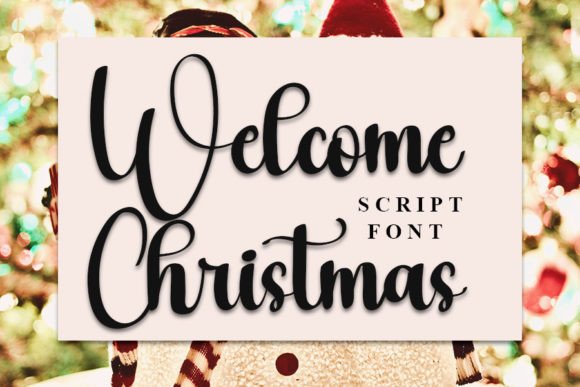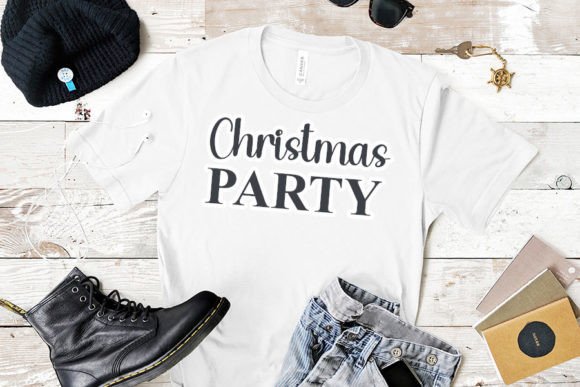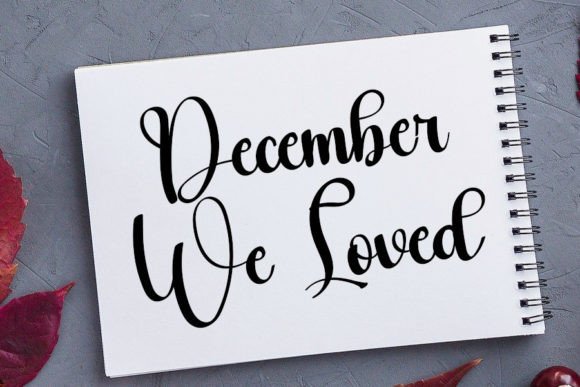
About Welcome Christmas Font
“Welcome Christmas” is a stylish handwritten font that exudes a contemporary atmosphere and impeccable form. Inspired by timeless classic calligraphy, this font is meticulously crafted with a balanced and varied design, aiming to enhance the beauty of your projects with a touch of elegance.
The contemporary vibes of Welcome Christmas make it a versatile and stylish choice for a variety of design applications. Whether you’re working on holiday-themed projects, branding, advertising, digital designs, or print materials, this font adds a sophisticated and modern touch.
The balanced and varied nature of Welcome Christmas ensures its seamless adaptation to different design contexts. Its handwritten style, influenced by timeless classic calligraphy, brings an authentic and personalized feel to your work.
Incorporate Welcome Christmas into your design toolkit to witness how it elevates the beauty of your projects. Let it be the font that adds a contemporary and stylish flair, making your designs stand out with impeccable form. Whether used for holiday greetings, branding, or other design elements, Welcome Christmas is designed to bring a perfect blend of modernity and classic elegance to your creative endeavors.